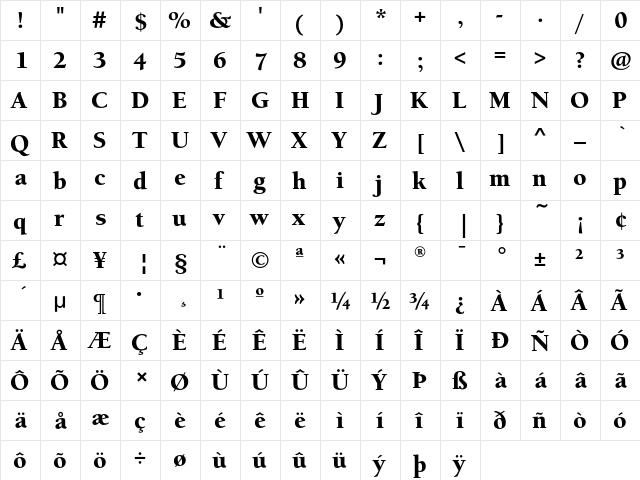
BerkeleyOldStyleEF Black
Design Context for BerkeleyOldStyleEF Typeface
BerkeleyOldStyleEF carries the refined structure of traditional serif typography, with bracketed terminals and considered proportions that communicate credibility and craft.
Pro Tip: Set BerkeleyOldStyleEF with slightly loose tracking in headlines to let each letterform's detail read clearly at display sizes.